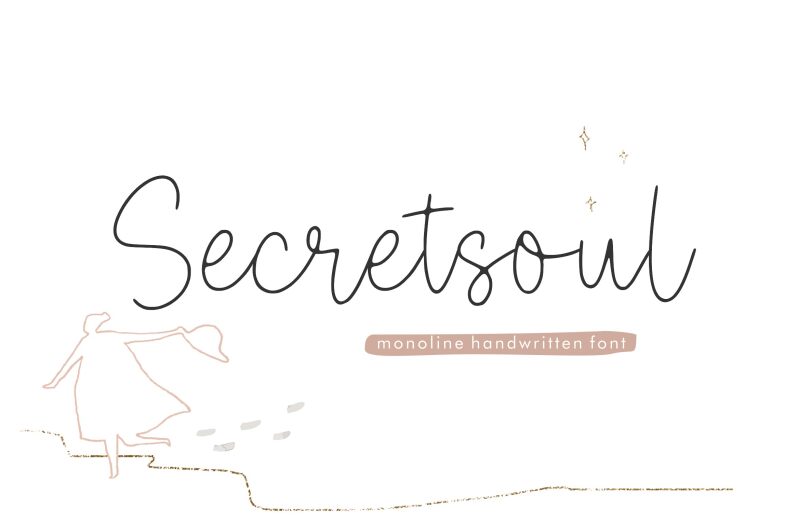
Secretsoul
Secretsoul, the exquisite creation of Balpirick Studio, is a font that exudes beauty and elegance with its extraordinary handwritten style. With its extra-light weight, this font invites you to add a touch of finesse to your design projects. Secretsoul is perfect for elegant invitations, romantic greeting cards, and sophisticated logos. Whether you're creating a blog header or designing wedding stationery, Secretsoul will elevate your project with its graceful curves and soft strokes. So why not add a little charm to your designs with this remarkable semi-bold font? Try it out for yourself and get ready to fall in love with the enchanting Secretsoul typeface!